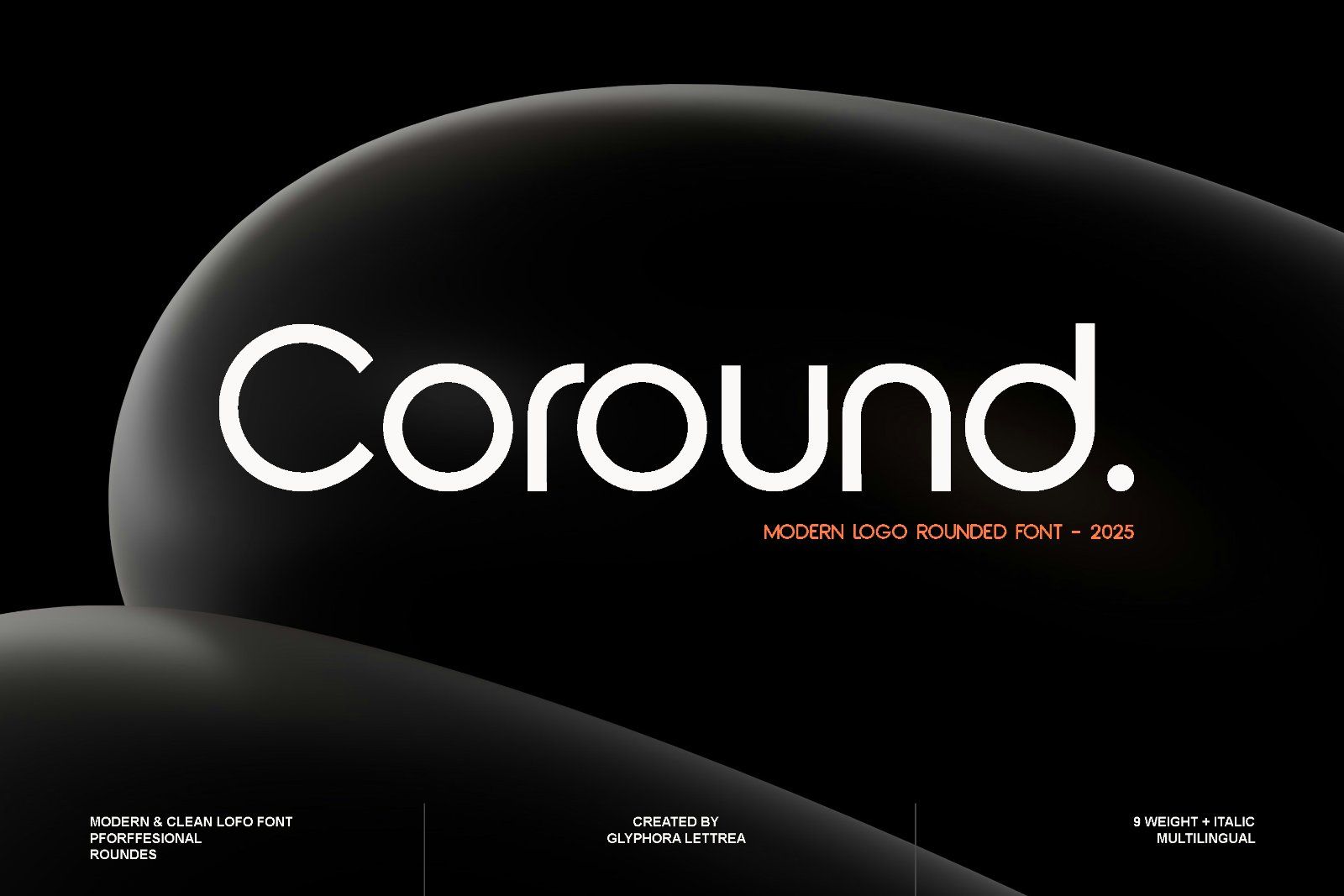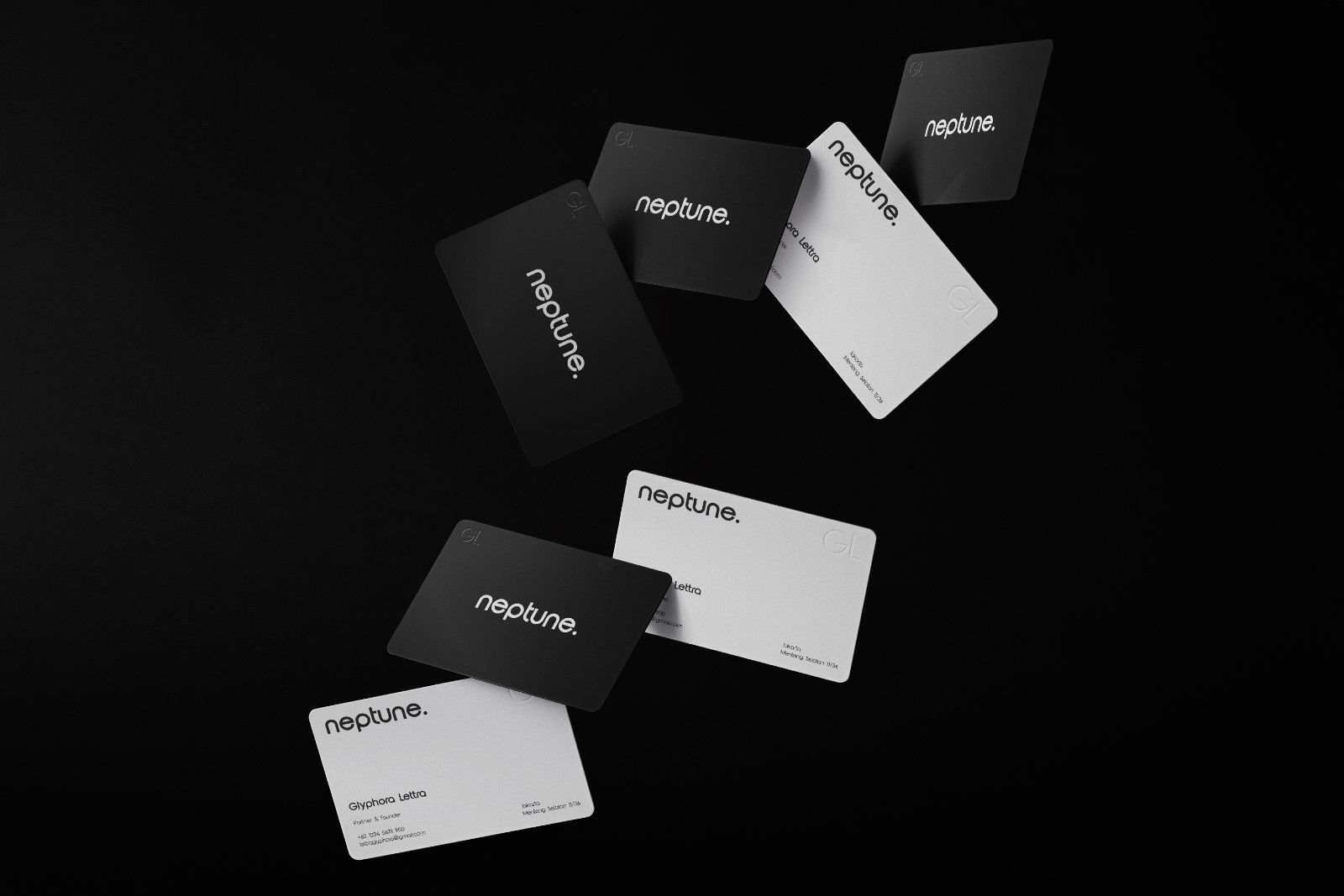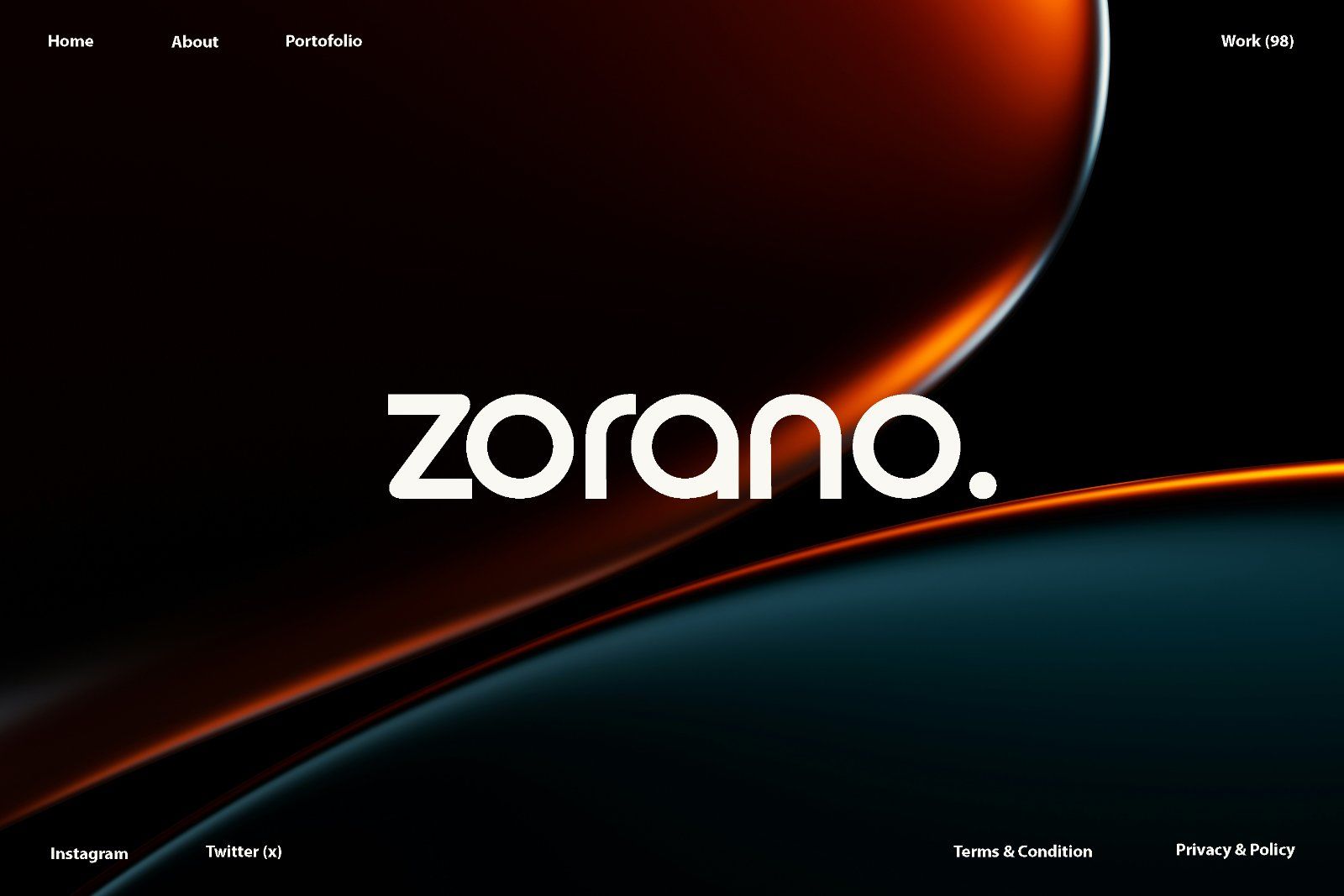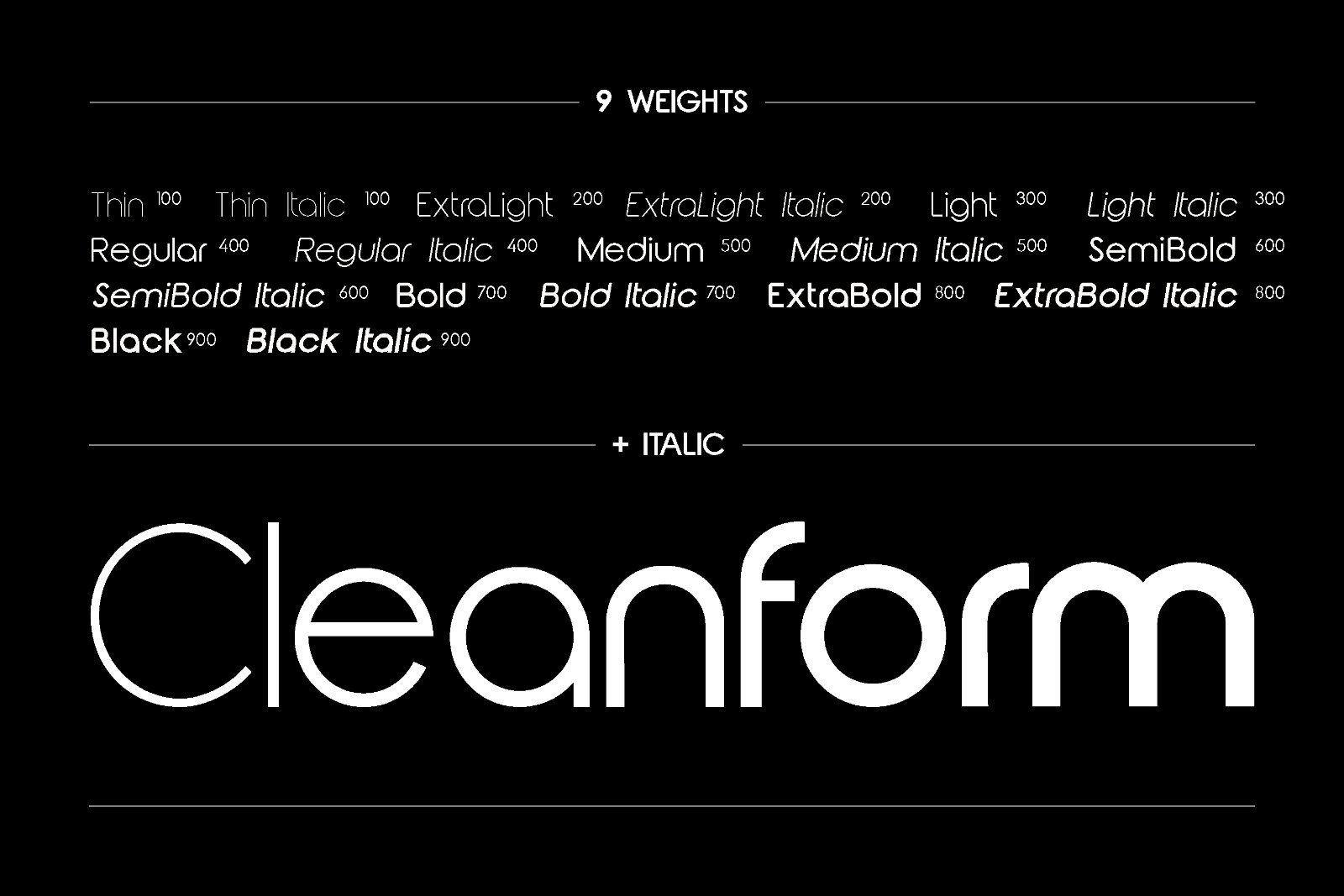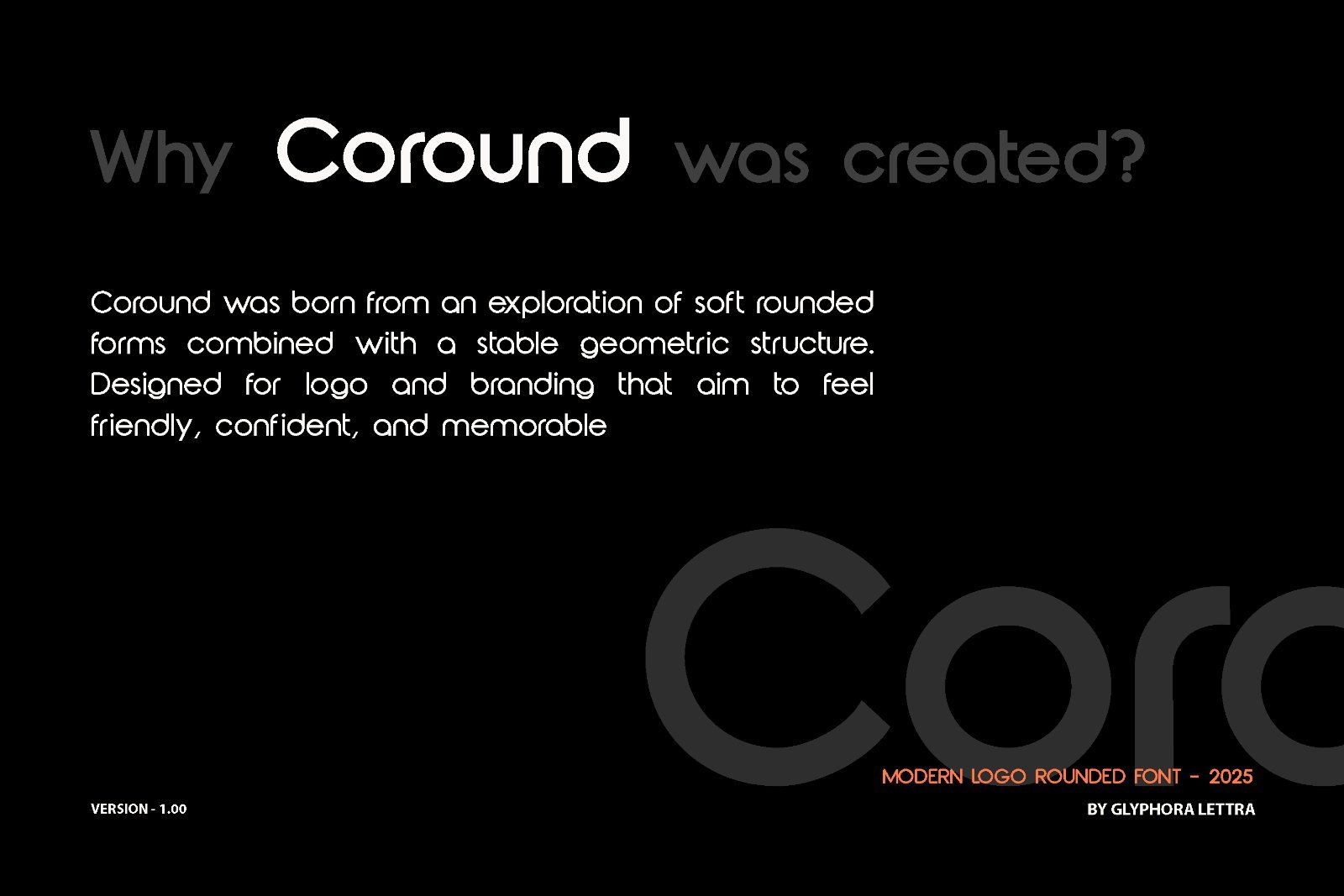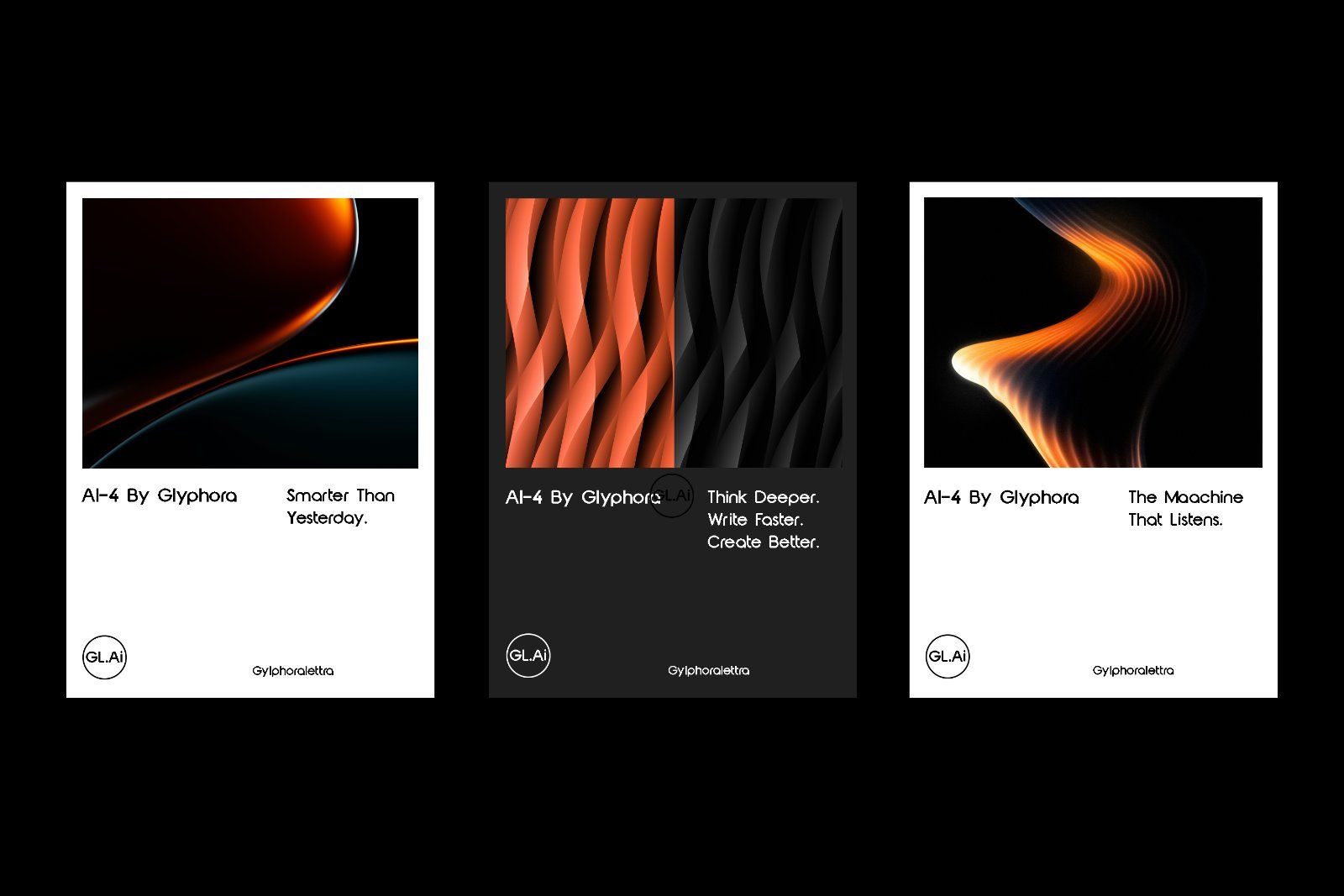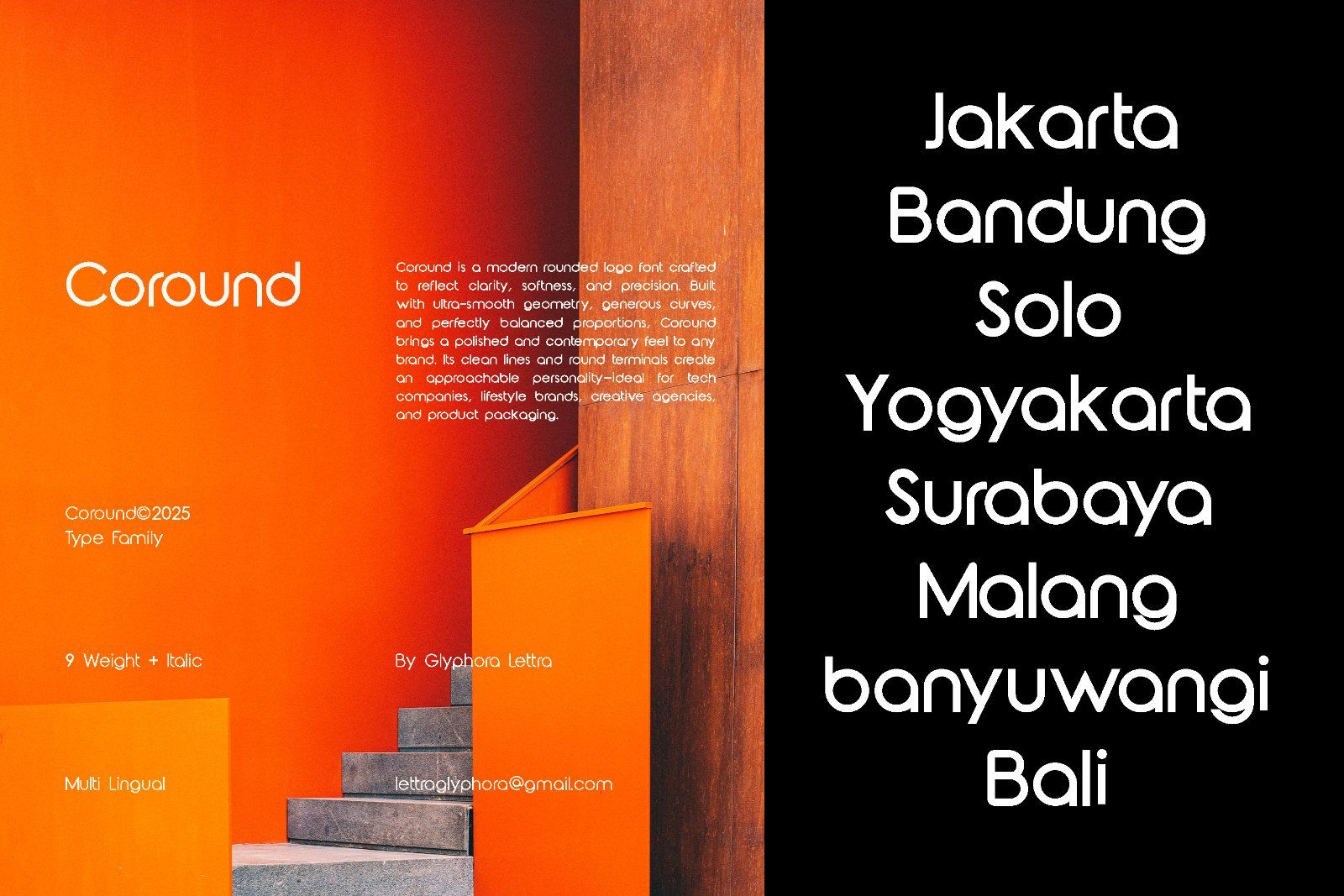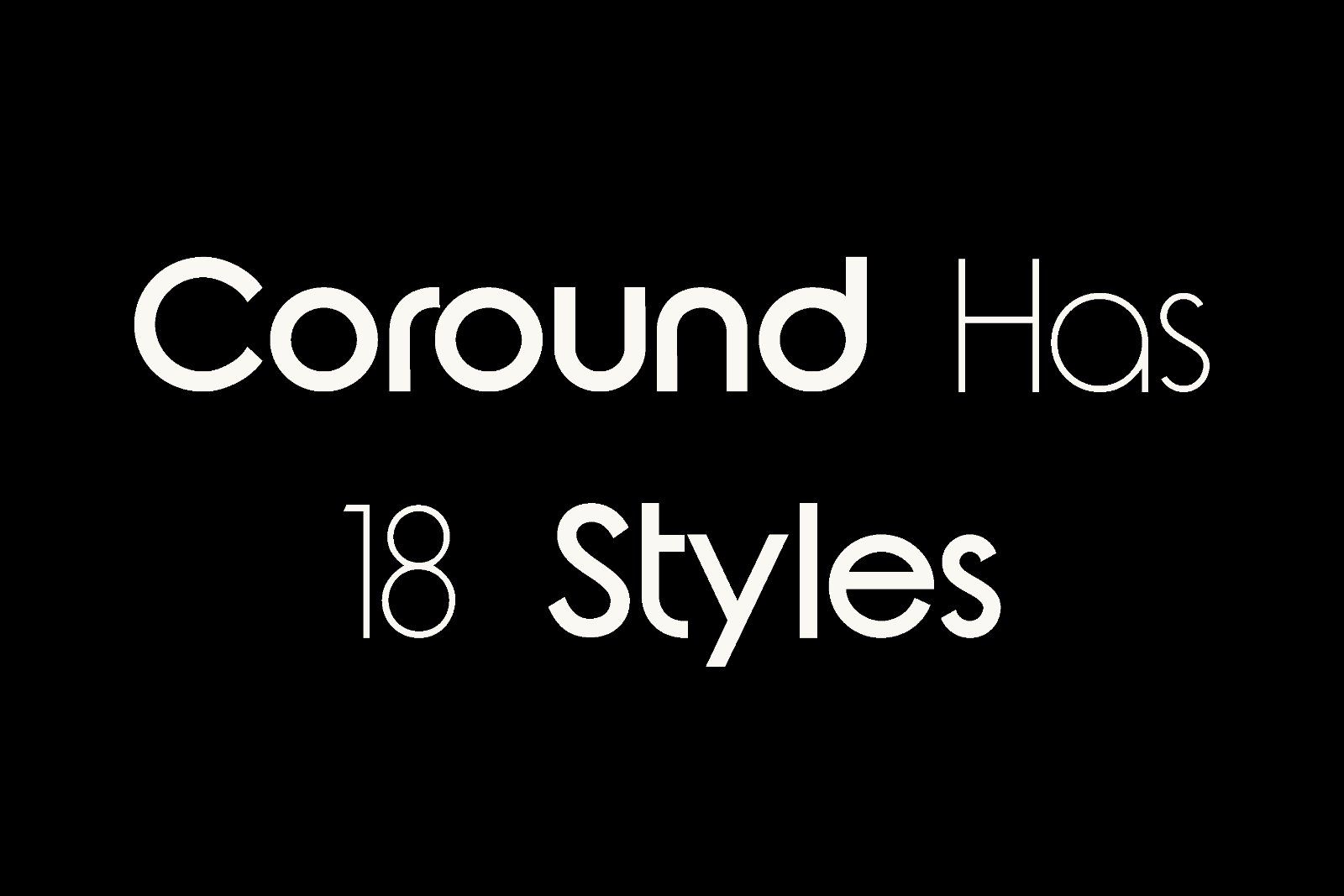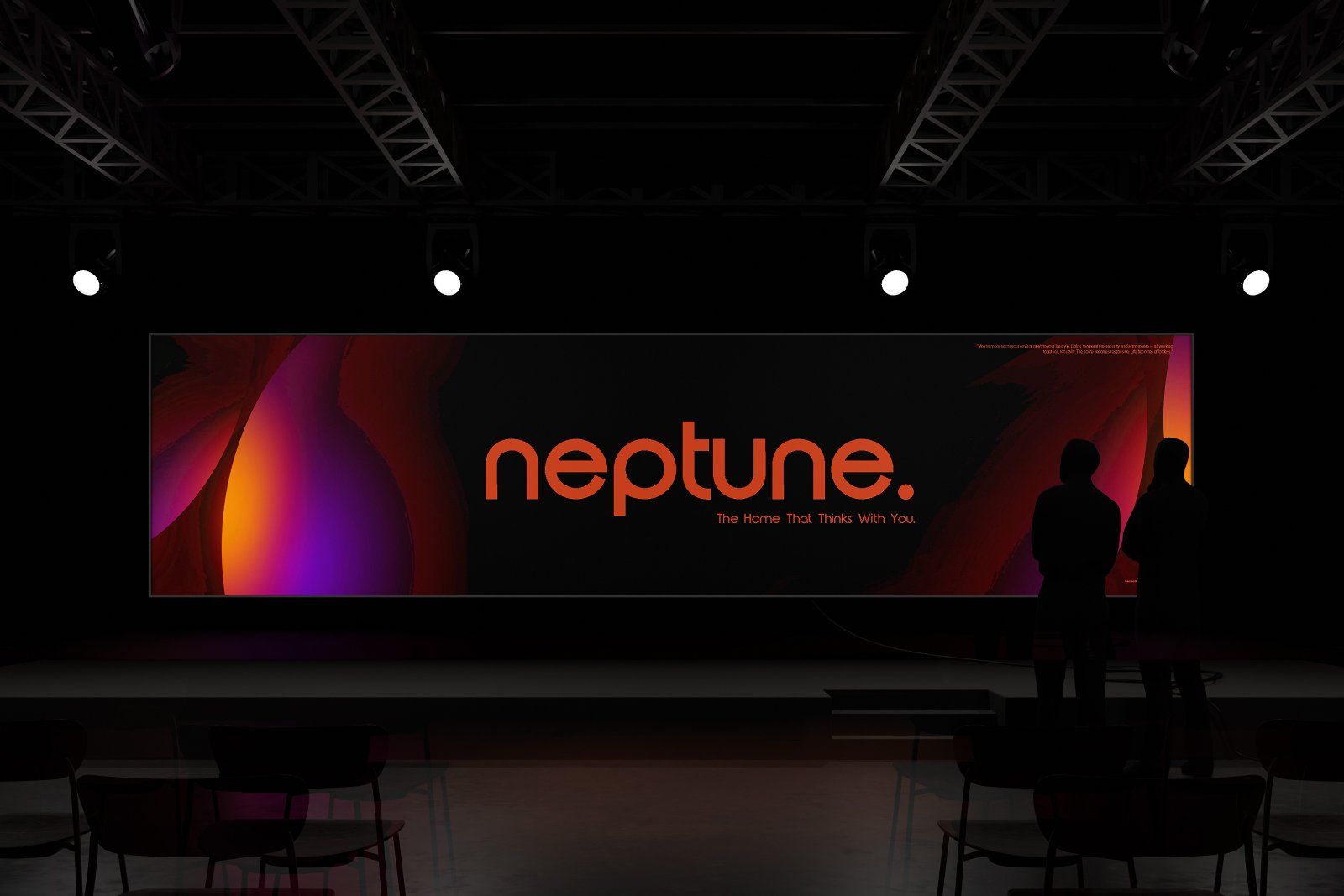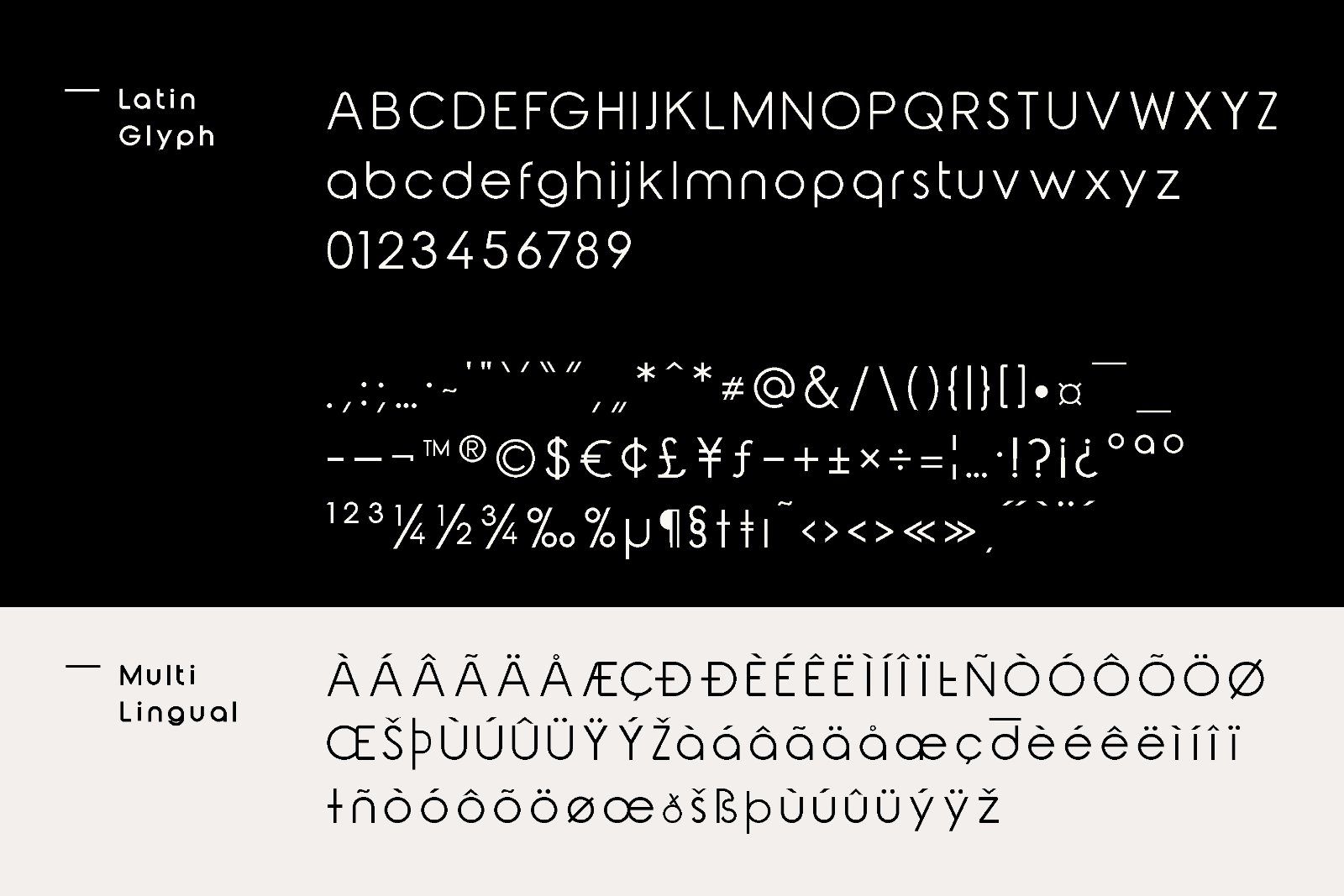
Coround is a modern rounded logo font crafted to reflect clarity, softness, and precision. Built with ultra-smooth geometry, generous curves, and perfectly balanced proportions, Coround brings a polished and contemporary feel to any brand. Its clean lines and round terminals create an approachable personality-ideal for tech companies, lifestyle brands, creative agencies, and product packaging.
• Uppercase & lowercase letters
• 9 Weights + Italics (From Thin to Black)
Perfect For:
• Logo & Branding
• Packaging Design
• Poster and Social Media Design
• Product and Merchandise Labels
• Editorial Design